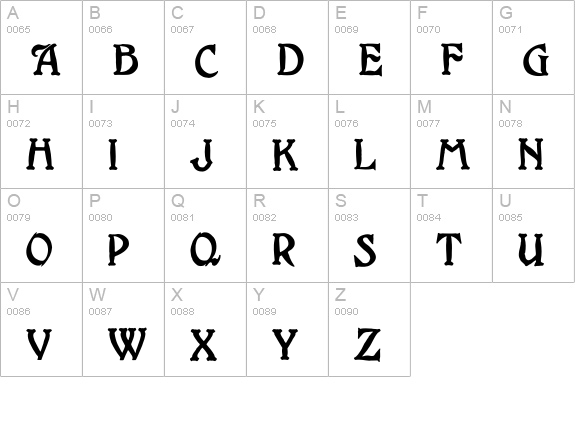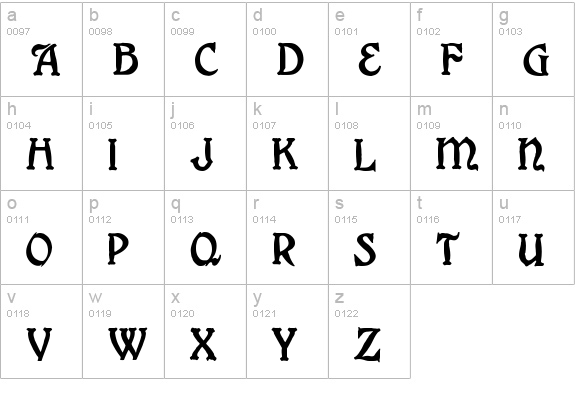
Grange Font Details
Grange font is a versatile and elegant typeface that exudes sophistication and style. Its clean lines and timeless design make it perfect for a wide range of projects, from branding and logo design to editorial layouts and packaging. The balanced combination of modernity and classic elegance gives Grange font a unique and eye-catching appeal that is sure to make your designs stand out. The best part? Grange font is available for free download at FontsMarket.com, making it accessible to designers of all levels looking to add a touch of sophistication to their projects. With its wide range of weights and styles, Grange font offers endless possibilities for creativity and customization. Whether you're working on a sleek corporate identity or a chic fashion magazine, Grange font is sure to elevate your designs to the next level. Download Grange font today and unleash your creativity with this stunning typeface.